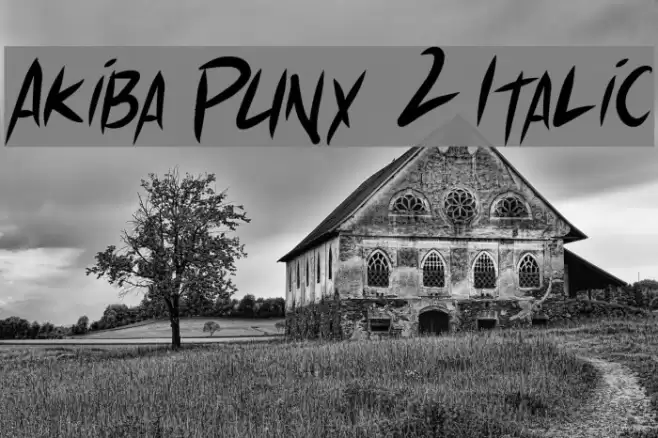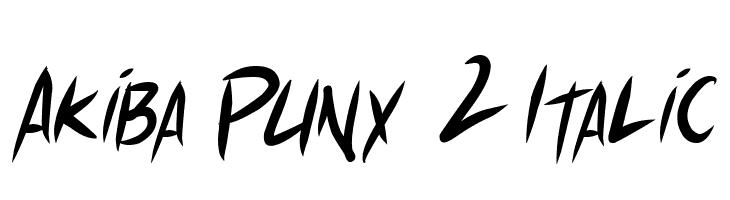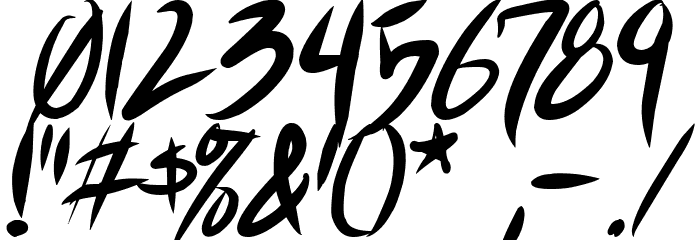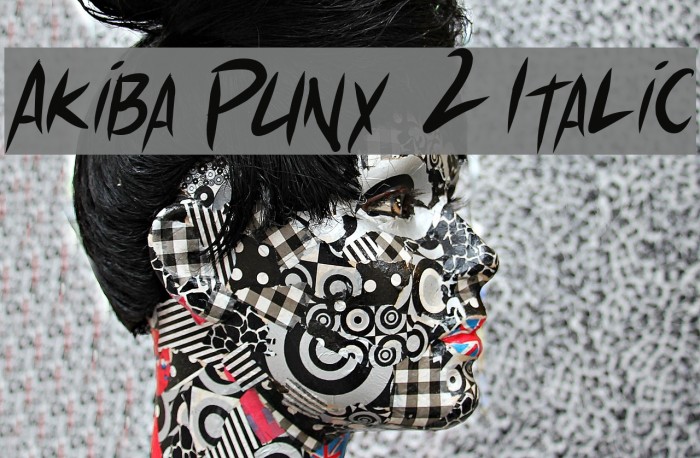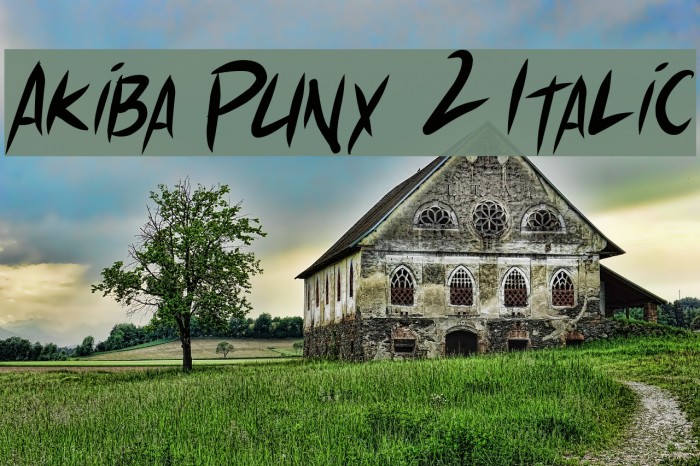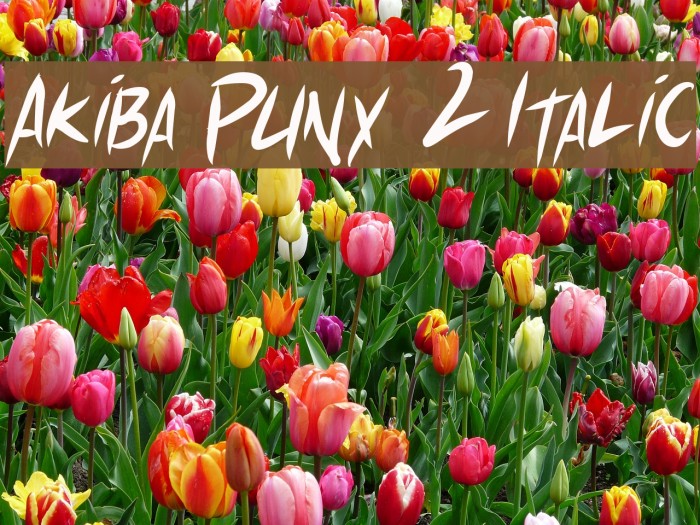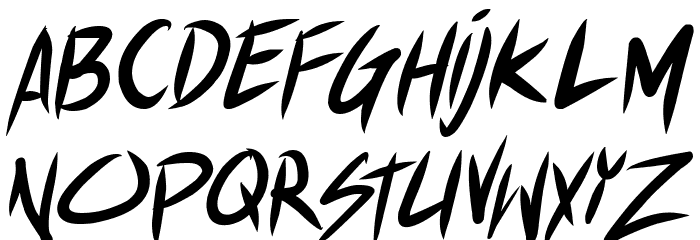
Akiba Punx 2 Italic Font
Akiba Punx 2 Italic Description
This font exudes a dynamic and energetic style, characterized by its bold, italicized strokes and sharp, angular edges. The letters are crafted with a sense of motion, giving them a graffiti-like appearance that is both modern and rebellious. The uppercase and lowercase letters maintain a consistent slant, enhancing the italic effect and adding to the font's overall sense of speed and urgency. The numbers and special characters follow the same stylistic cues, ensuring a cohesive look across all glyphs. The font's thick strokes and high contrast make it highly legible, even at smaller sizes, while the unique design elements ensure it stands out in any context.
A bold, italicized font with a dynamic, graffiti-inspired style from Uncategorized fonts.
- Proposed Projects: Ideal for streetwear branding, music album covers, event posters, and urban-themed designs.